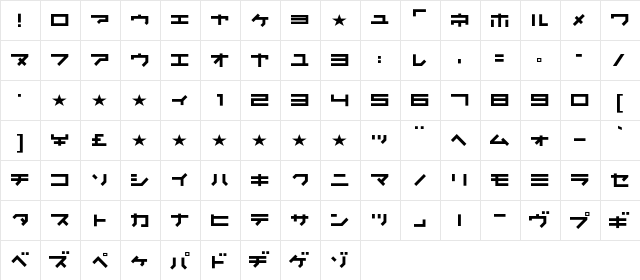
Kunstware Katakana
Design Context for Kunstware Typeface
Kunstware takes a measured approach to typography — its balanced proportions and neutral character make it a reliable workhorse for both digital and print work.